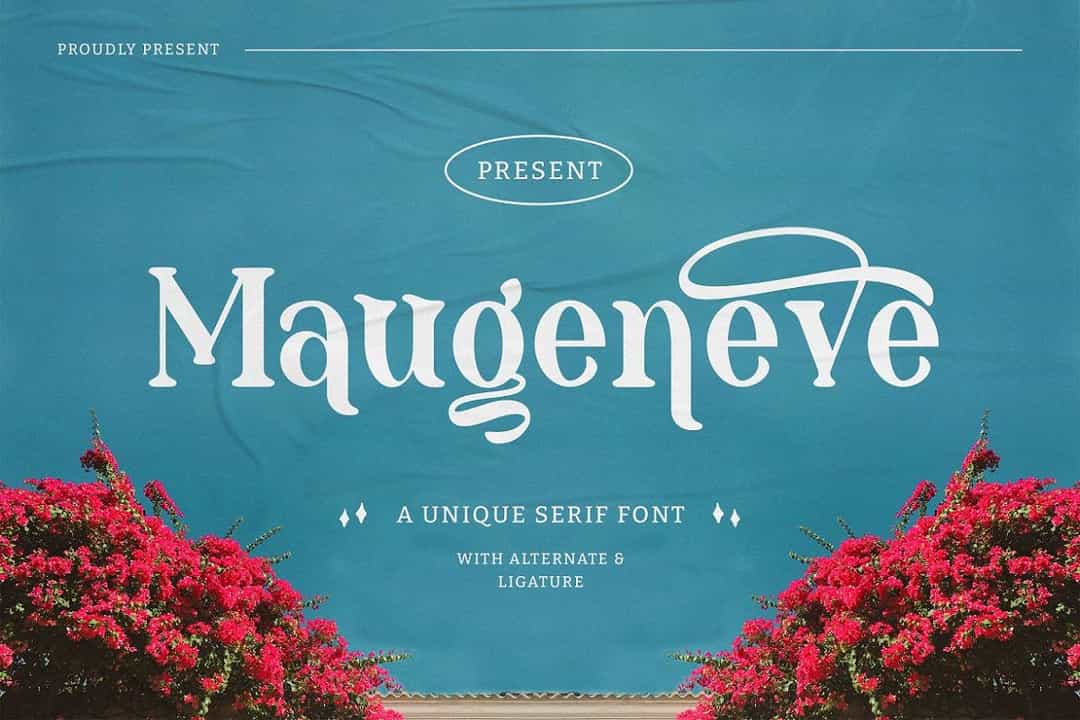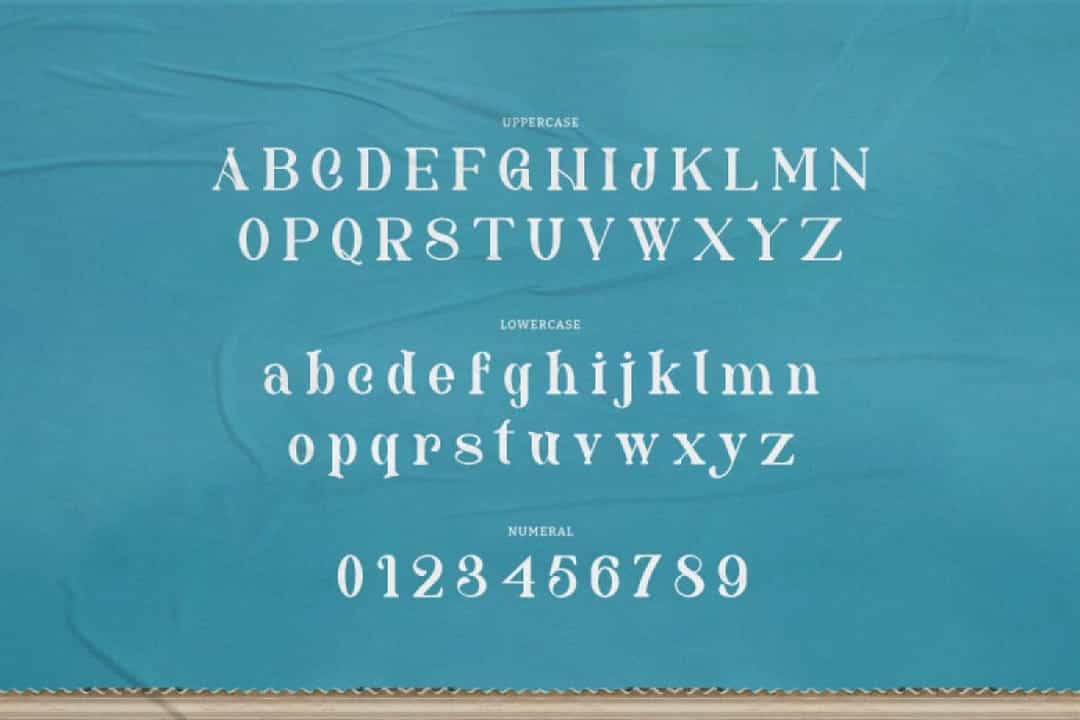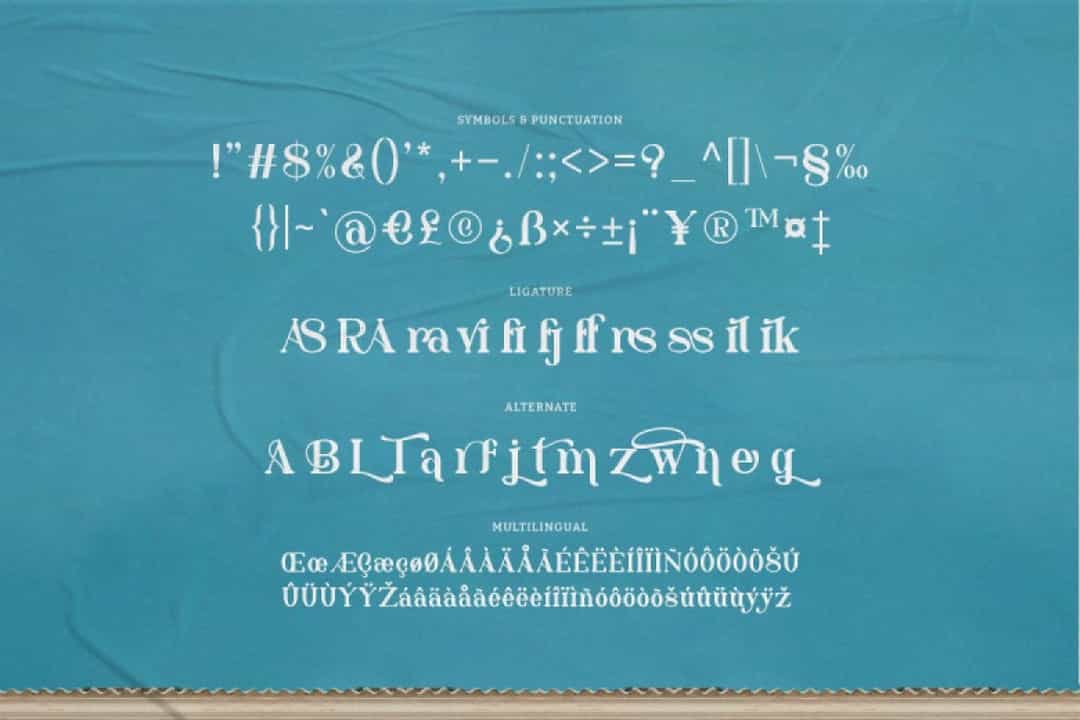
Maugeneve is an exceptional serif font. Perfect for creative projects and designs alike, its versatile nature allows it to fit seamlessly into any creative project or amazing design you may envision – be it branding projects, logo design, clothing branding for products magazines headers for magazines or simply as trendy text overlays on any background picture.